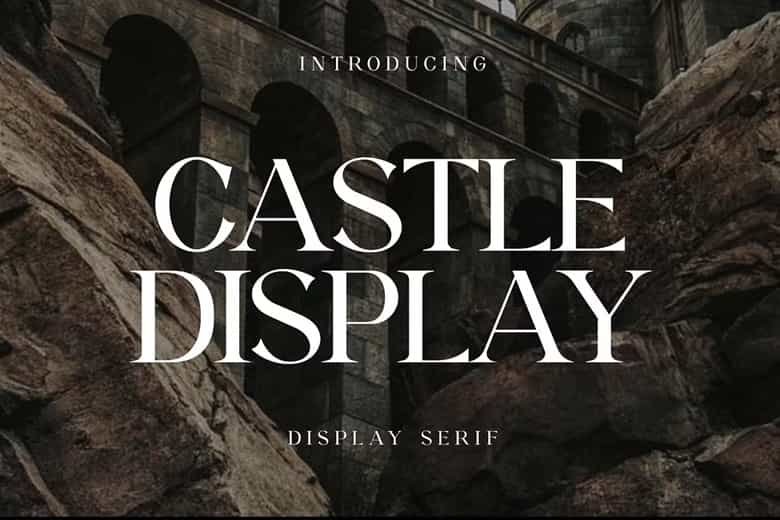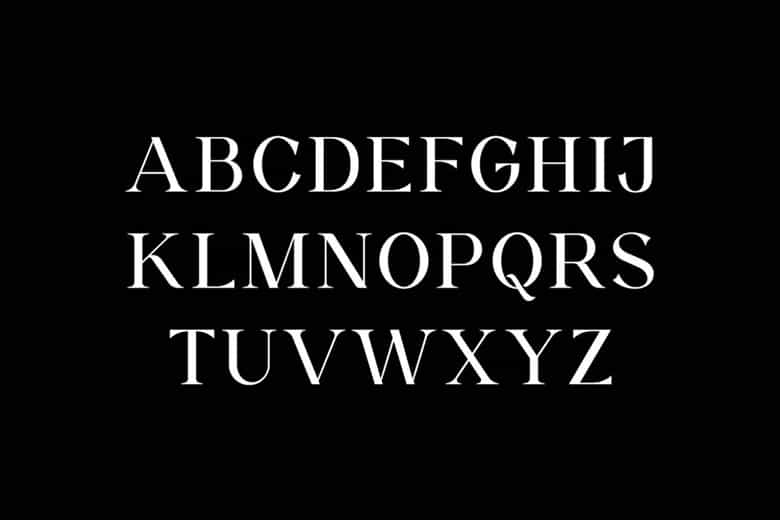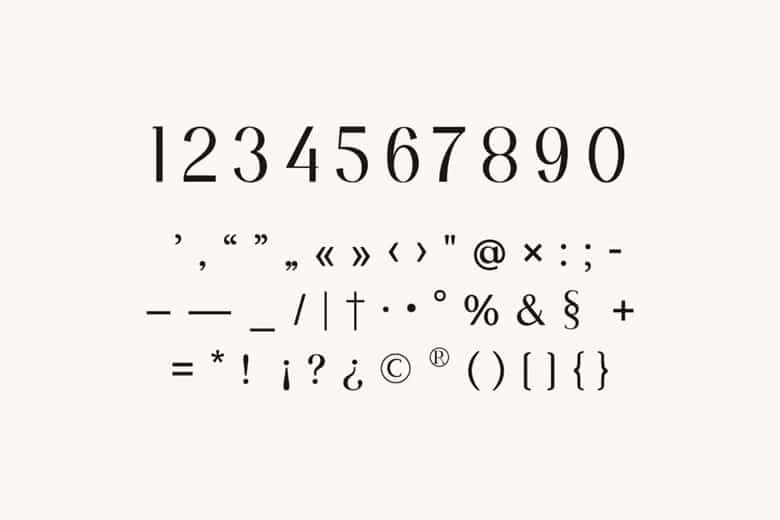
Castle Display Font
Castle Display is a beautiful classy, elegant, and stylish display serif font. It is appropriate for any projects like signature, stationery, logo, wedding, typography quotes, magazine or book cover, web header, brands, and much more.